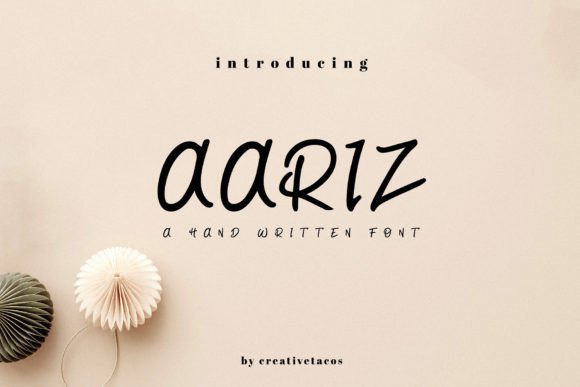
Unlock Your Creativity with the Aariz Handwritten Font
For designers, finding the right font can make all the difference between a good project and a great one. That’s why we’re excited to introduce you to the Aariz Handwritten Font – a delicate, cute, and stylish font that’s perfect for adding a distinctive touch to your projects. Whether you’re creating presentations, headlines, lettering, or posters, Aariz is the perfect companion to help you elevate your designs.
Aariz Handwritten Font Key Features
- Unique Characteristics: Authentic handwritten feel, elegant and cursive script, perfect for creative and artistic designs
Aariz Handwritten Font Review
At first glance, I was immediately drawn to the charming, whimsical feel of Aariz Handwritten Font. The ✨ subtle imperfections and flourishes add a level of personality to text that’s hard to resist. It’s perfect for designers looking to create a unique and eye-catching visual identity.
The font is incredibly versatile, suitable for a wide range of applications from branding and advertising to editorial and web design. It’s also highly legible, making it easy to read and comprehend even at smaller font sizes.
- ✨ Charming, handwritten feel that adds personality to text
- ✨ Highly versatile and suitable for various design applications
- ✨ Legible even at smaller font sizes
- ⚠️ Limited font weight options, which may limit its use in certain design contexts
- ⚠️ Some characters may not be perfectly consistent in terms of spacing or shape, which could affect readability
Overall, I’m impressed with Aariz Handwritten Font’s unique character and versatility. While it may have some limitations, it’s a great choice for designers looking to add a touch of personality to their work.
Tips for Getting the Most Out of Aariz Handwritten Font
For best results, use Aariz Handwritten Font in designs that require a personal, handwritten touch. This font works well for:
- DIY projects and crafts.
Alternatives to Aariz Handwritten Font
Great Vibes is a beautiful, elegant, and cursive font that is perfect for wedding invitations, greeting cards, and other formal documents. It has a classic feel to it, making it ideal for creating a timeless and sophisticated look.
Great Vibes is similar to Aariz Handwritten Font in its elegant and cursive nature, but it has a more refined and polished look. Great Vibes is more versatile and can be used for a wide range of designs, from formal to casual.
Carolyna Pro is a modern and elegant script font that is perfect for creating a luxurious and sophisticated look. It has a fluid and dynamic feel to it, making it ideal for fashion, beauty, and lifestyle brands.
Carolyna Pro is similar to Aariz Handwritten Font in its elegant and cursive nature, but it has a more modern and trendy feel. Carolyna Pro is more suitable for fashion and lifestyle brands, while Aariz Handwritten Font is more versatile and can be used for a wide range of designs.
Alex Brush is a elegant and cursive script font that is perfect for creating a luxurious and sophisticated look. It has a classic feel to it, making it ideal for formal documents, such as wedding invitations and certificates.
Alex Brush is similar to Aariz Handwritten Font in its elegant and cursive nature, but it has a more refined and polished look. Alex Brush is more suitable for formal documents, while Aariz Handwritten Font is more versatile and can be used for a wide range of designs.